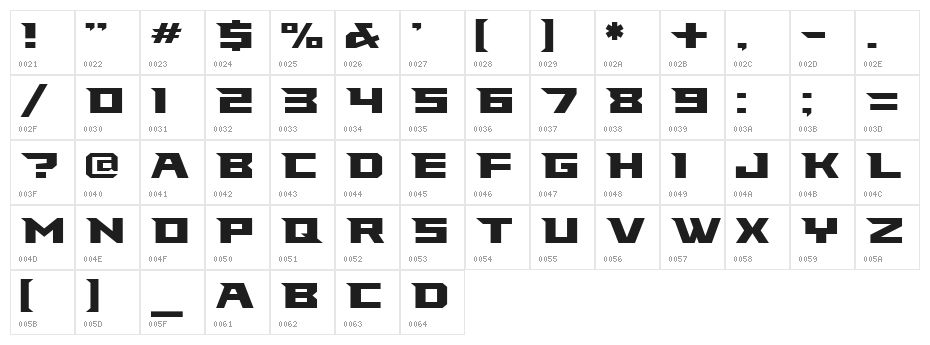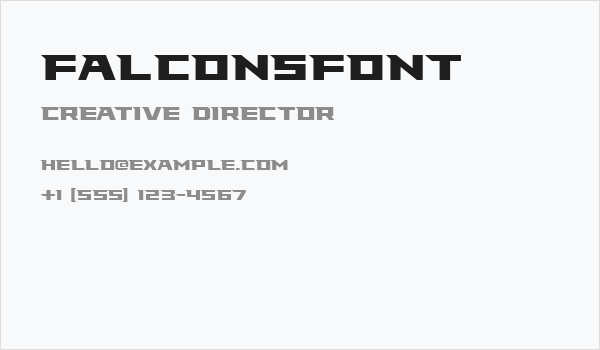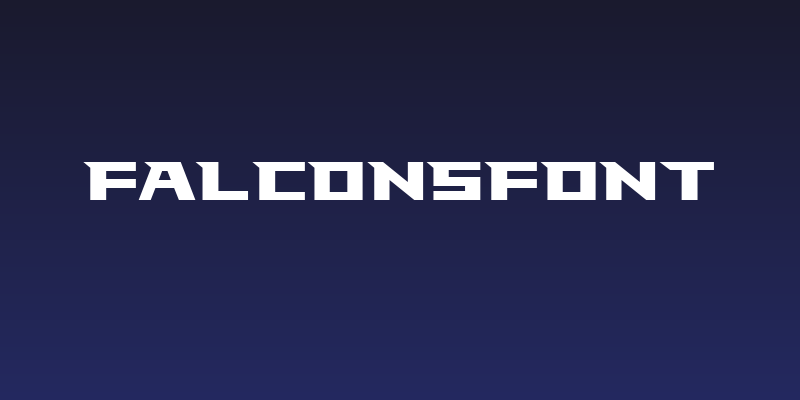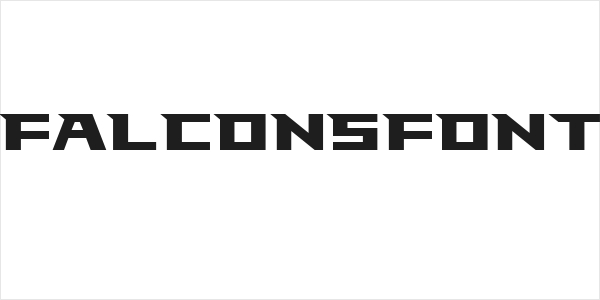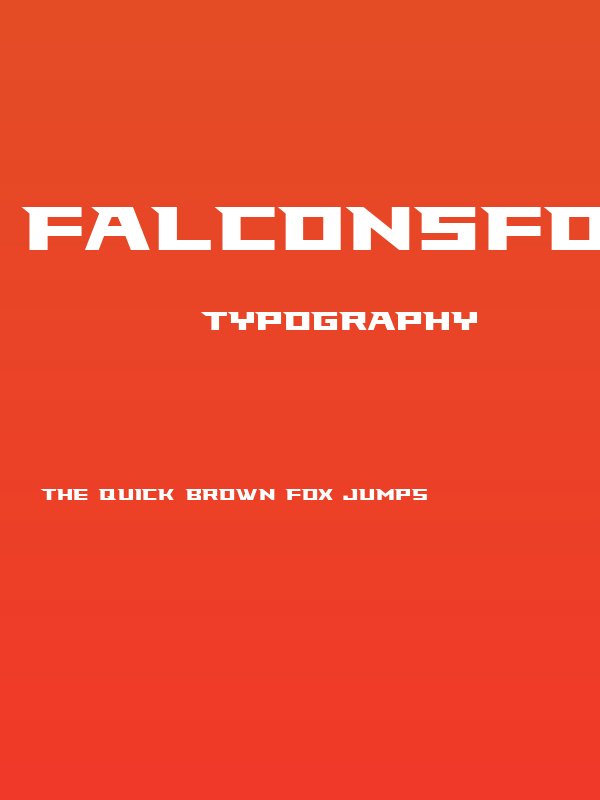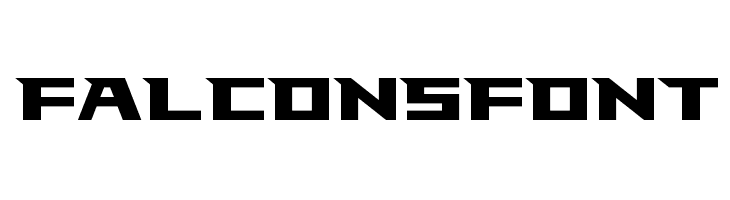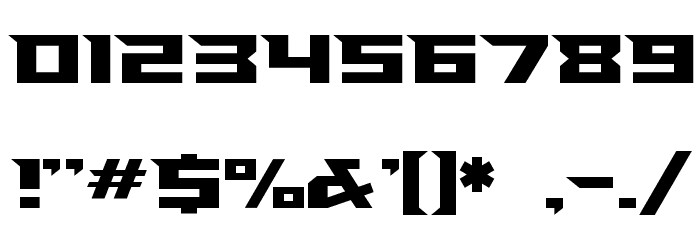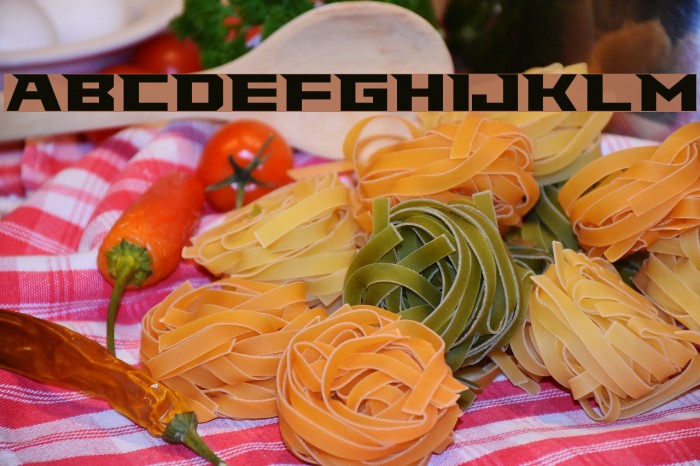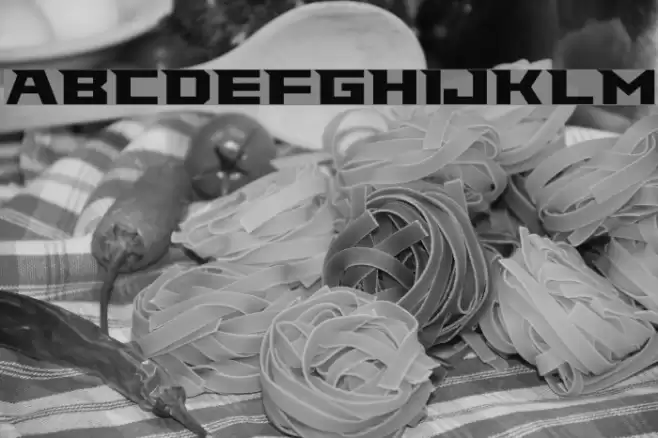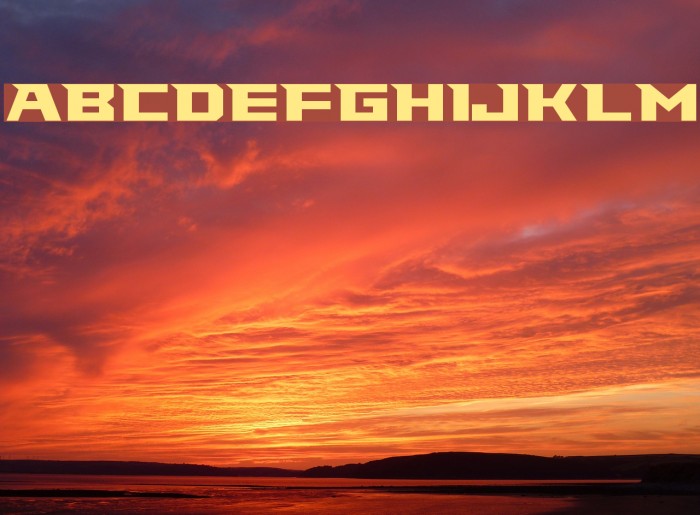
FalconsFont Font
FalconsFont Description
This font features a bold, angular design with a futuristic and dynamic appearance. The characters are constructed with sharp, geometric edges, giving them a strong and impactful presence. The uppercase and lowercase letters maintain a consistent style, emphasizing uniformity and cohesion. Numbers and special characters follow the same design principles, ensuring a comprehensive and versatile typeface. The font's distinct style makes it suitable for projects that require a modern and edgy look.
| Proposed Projects | Ideal for sports branding, video game titles, sci-fi movie posters, and tech-related advertisements. |